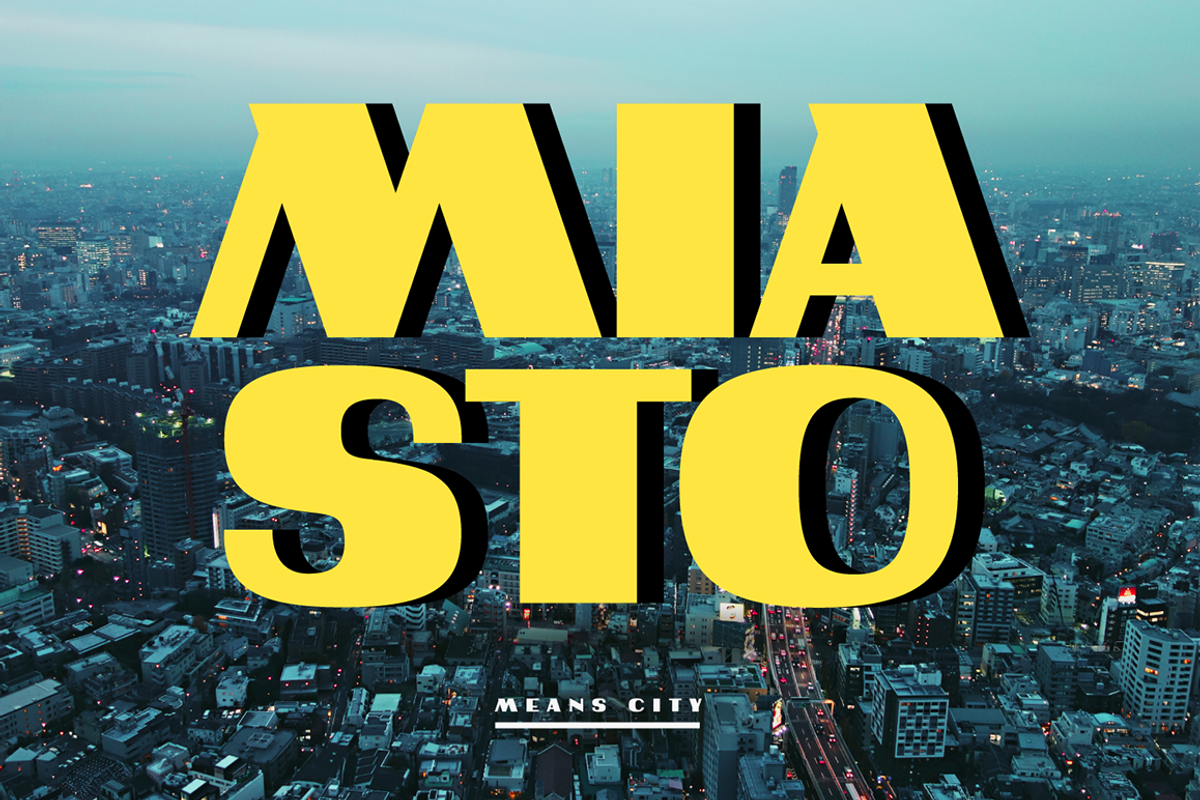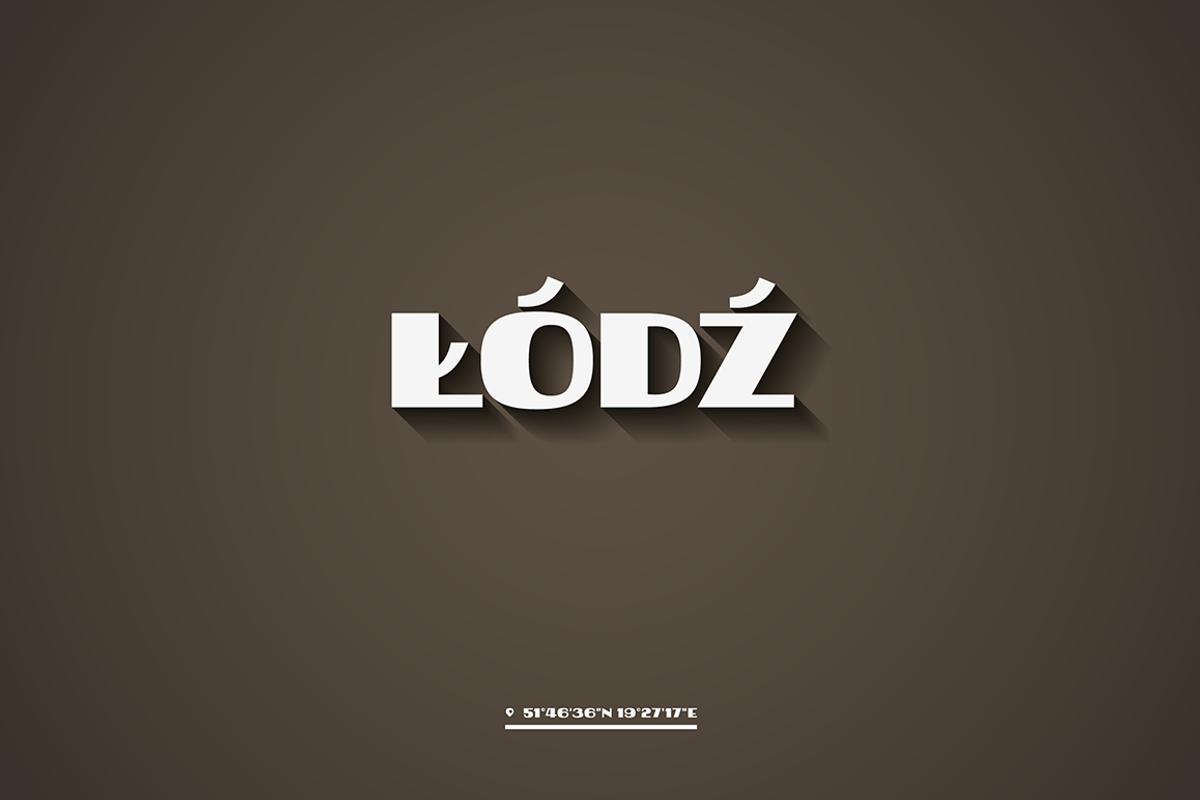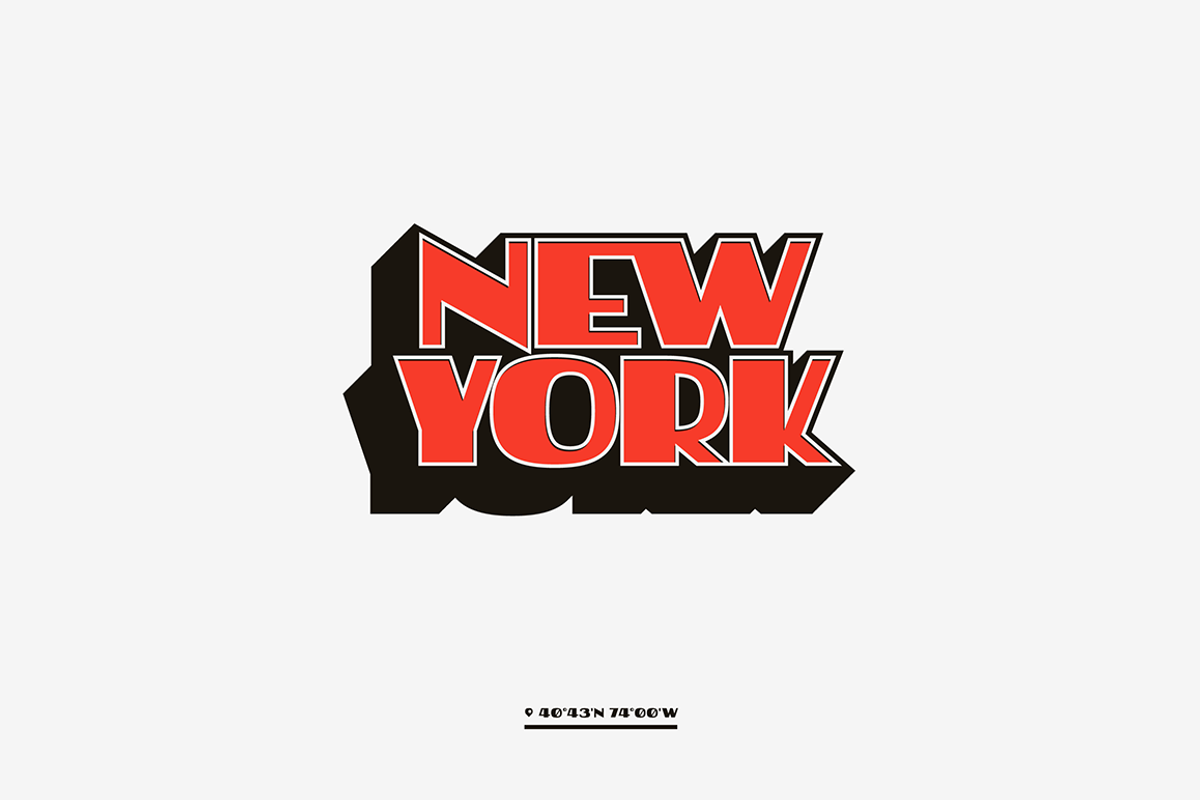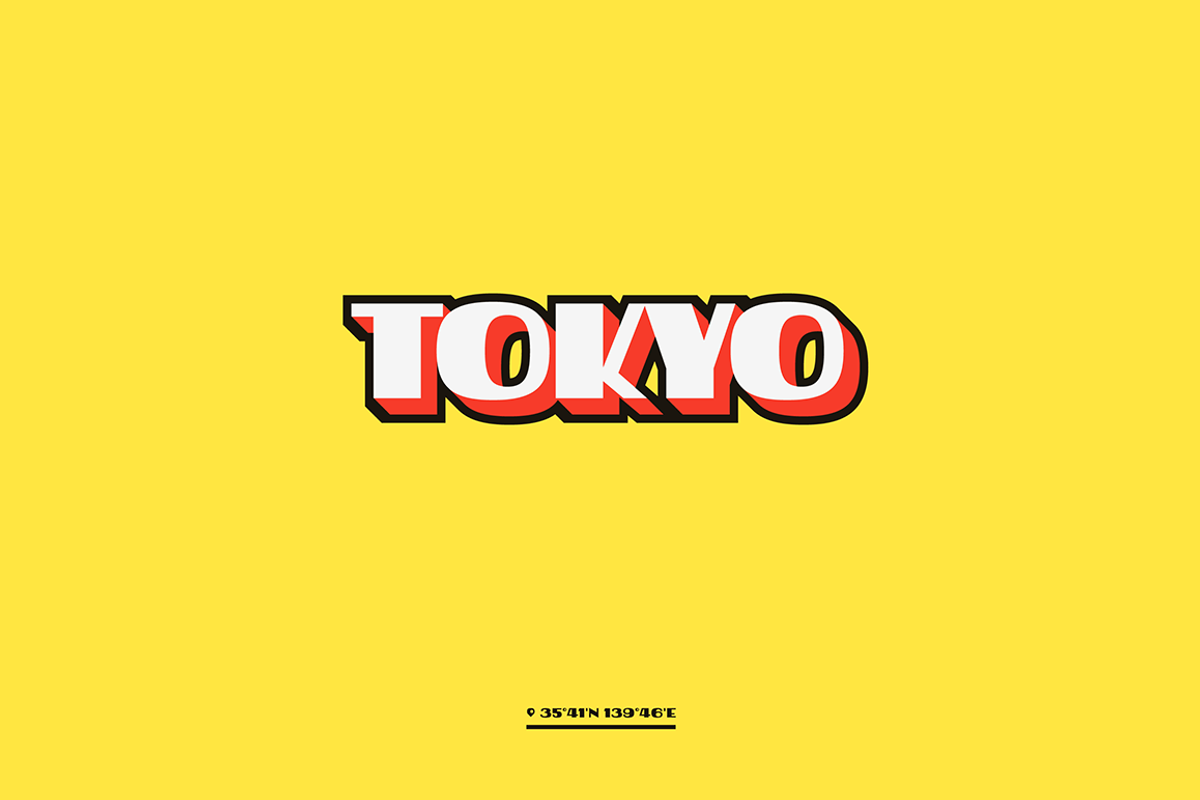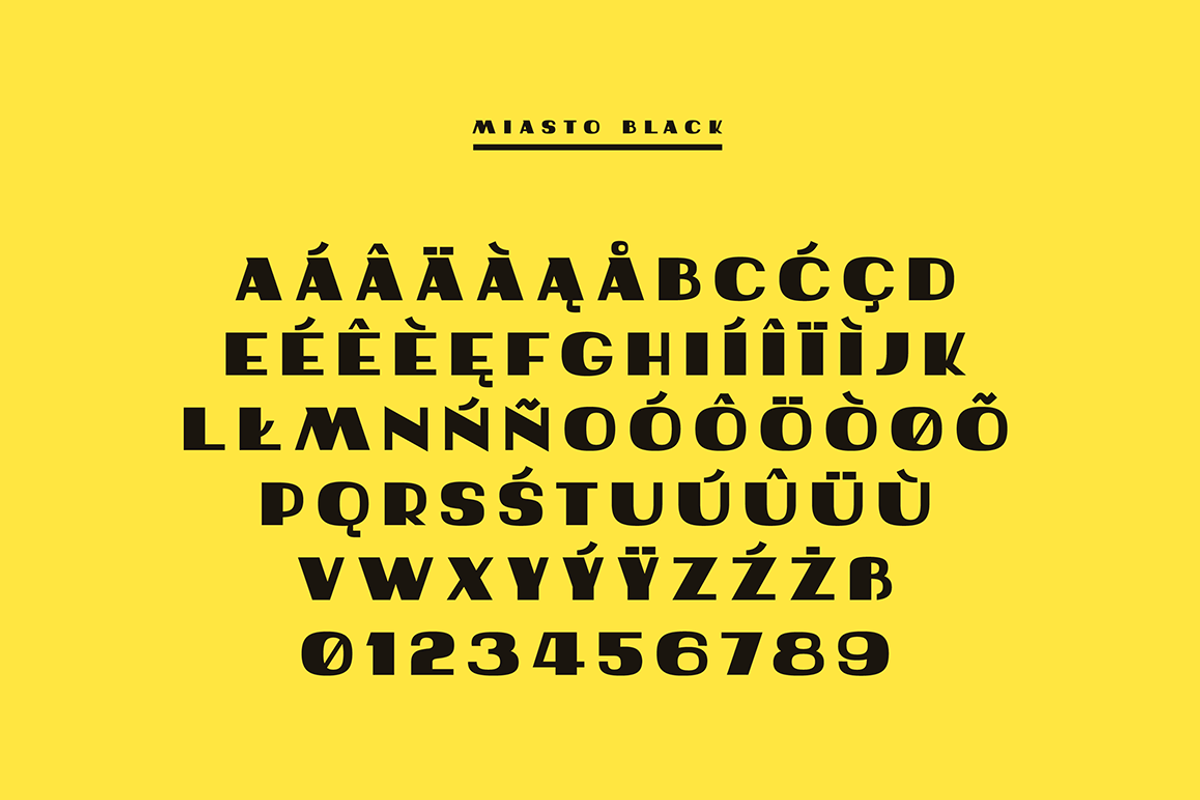
Miasto Font
Miasto (City) is a headline font designed for the educational publication for children. Inspired by lettering of signs and advertisements of Polish People's Republic period in Poland. Suggested usage: titles, headlines, posters and illustrations.
Included glyphs:
- AÁÂÄÀĄÅBCĆÇDEÉÊÈĘFGH
- IÍÎÏÌJKLŁMNŃÑOÓÔÖÒØÕPQ
- RSŚTUÚÛÜÙVWXYÝŸZŹŻß
- *:,!¡#.?¿"';/_()- ¢$€£¥=%+&°